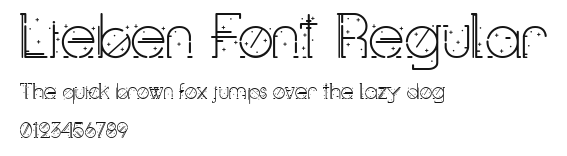
• Font Name: Lieben Font Regular
• Manufacturer: Yai Sainas
About Lieben Font Regular.ttf
Lieben Font Regular.ttf is a modern, elegant sans-serif font designed for ultimate readability and visual harmony. Perfect for branding, headlines, web design, and print materials.